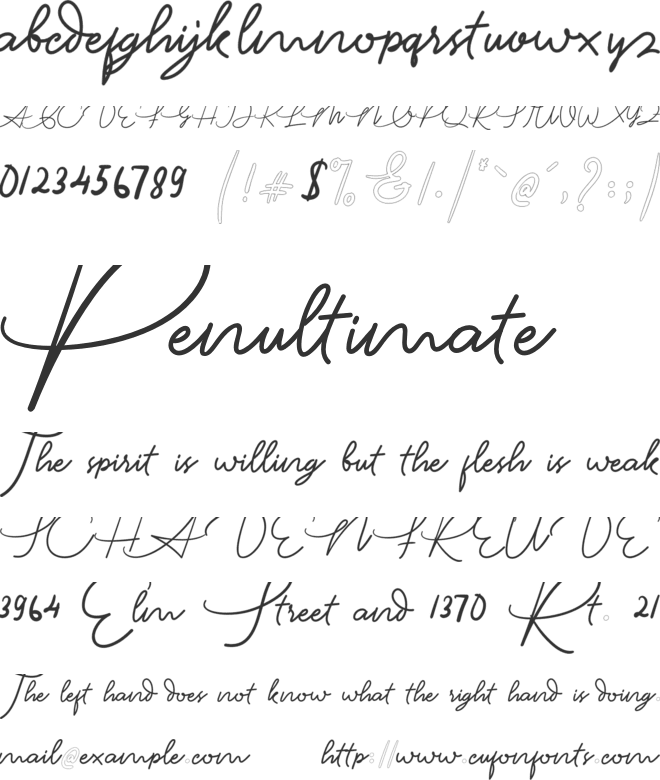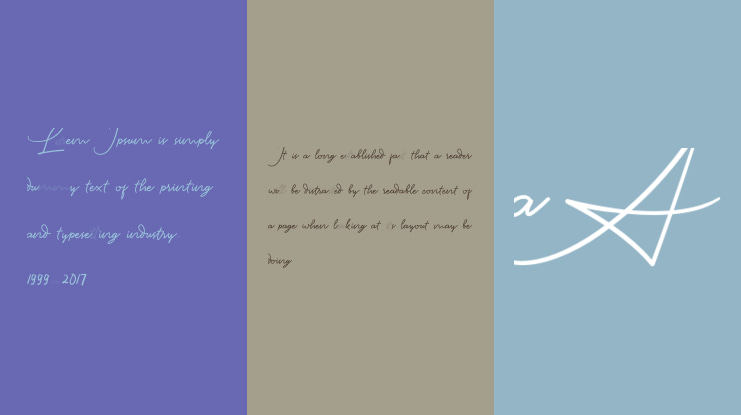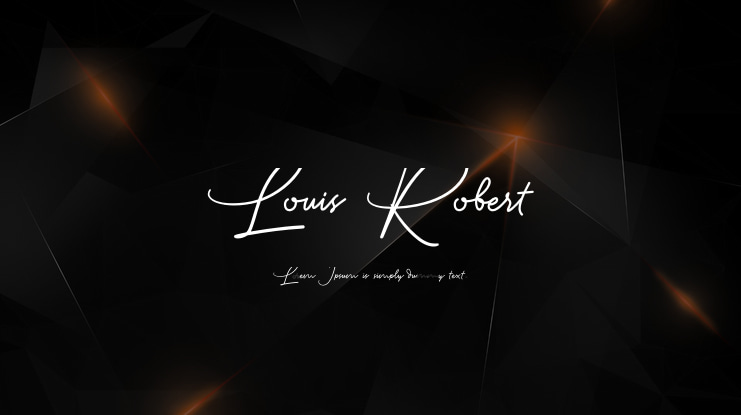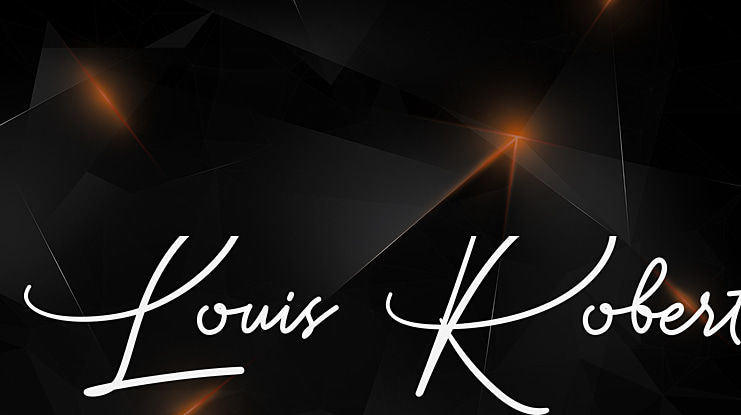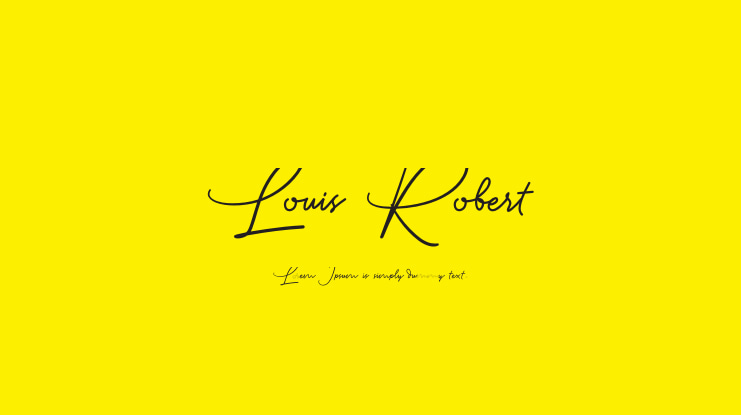
Louis Robert Font
Louis Robert is an elegant script font. It is suitable for various design needs such as creating logos, signatures, cover titles, and more. It has beautiful and well balanced characters and as a result, it matches a wide pool of designs.